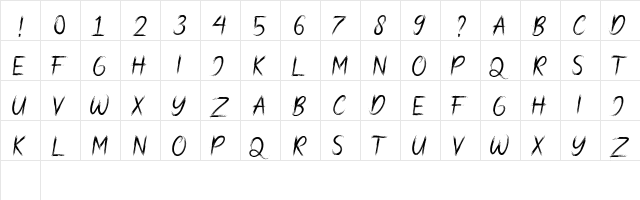
Bad Hunter Brush Regular
Design Context for Bad Hunter Brush Typeface
Bad Hunter Brush flows with the natural rhythm of handwritten lettering, making it ideal for designs that call for warmth and personal expression.
Font Pairing: Combine Bad Hunter Brush with a simple geometric sans for maximum contrast — the tension between flowing curves and clean structure is a classic typographic pairing.
Pro Tip: Pair Bad Hunter Brush with a clean sans-serif for supporting text. The contrast between fluid script and geometric structure creates an elegant typographic hierarchy.